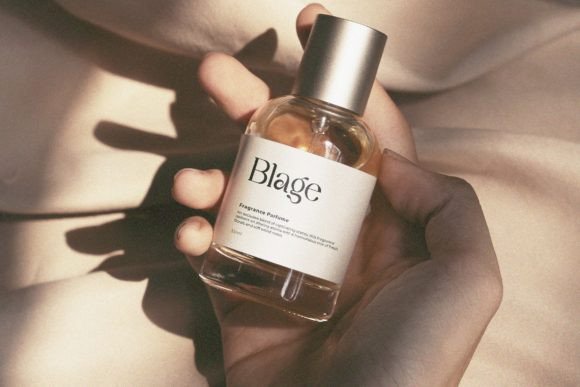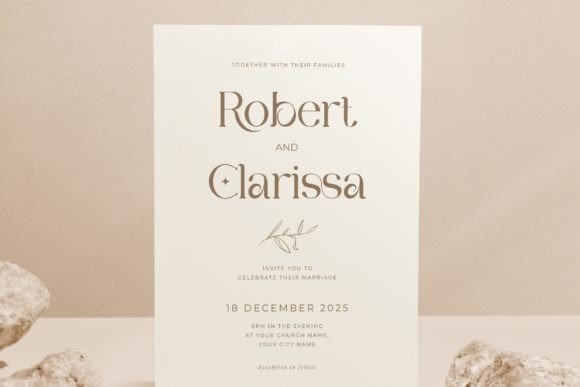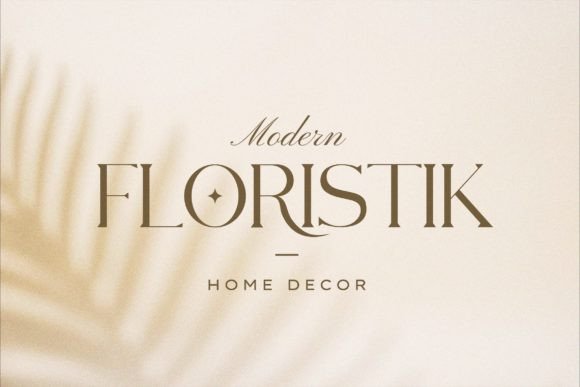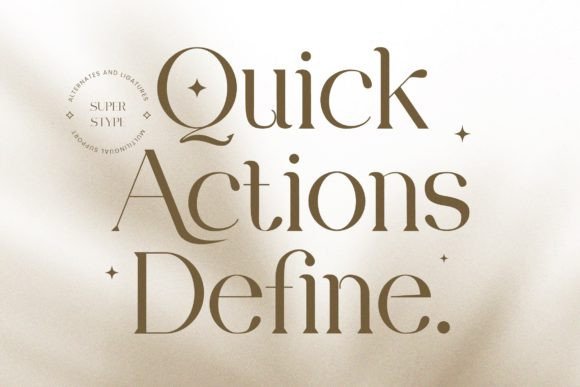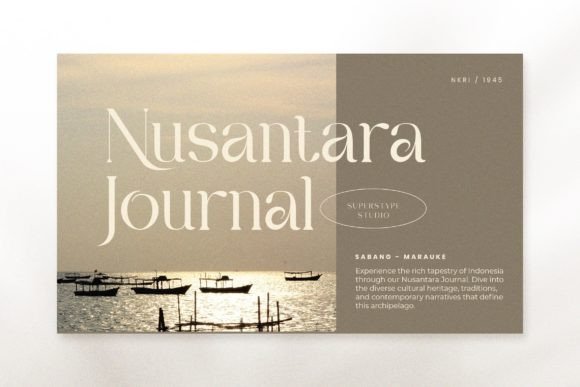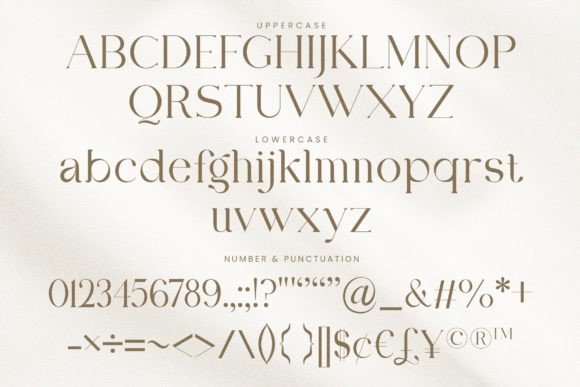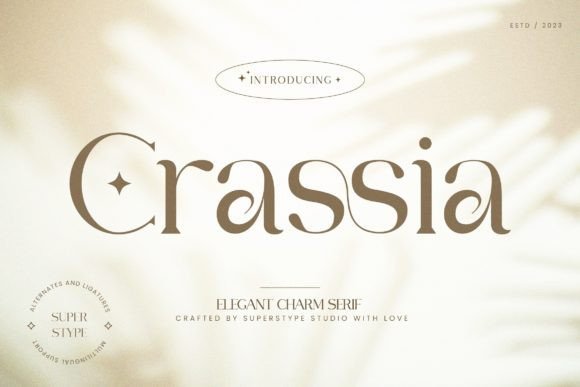
Introducing Crassia Font: Elevate Your Designs with Sophistication
We’re thrilled to announce the release of our newest font, Crassia! This stunning serif typeface is specifically designed for the fashion industry, bringing a touch of luxury and sophistication to your designs. With its refined contours and timeless charm, Crassia is the perfect choice for designers and crafters looking to elevate their visual creations.
The Essence of Crassia Font
Crassia font embodies the essence of high-end fashion, making it an ideal choice for editorial layouts, branding materials, website headers, and high-fashion magazines. Its polished and elegant design exudes a sense of opulence, adding an irresistible touch to your designs. Whether you’re working on a fashion magazine, a luxury brand’s website, or a high-end product catalog, Crassia font is sure to make a statement.
Key Features of Crassia Font
• PUA Encoded: Crassia font is PUA (Private Use Area) encoded, which means you can easily access all the amazing glyphs and ligatures. This feature allows you to unlock the full potential of the font and take your designs to the next level.
• Serif Typeface: Crassia’s serif typeface is designed to bring a sense of sophistication and elegance to your designs. The subtle serifs add a touch of refinement, making it perfect for high-end fashion brands and publications.
• Timeless Charm: Crassia font has a timeless quality that ensures your designs will remain stylish and relevant for years to come. Its classic design makes it an excellent choice for brands and designers looking to create a lasting impression.
• Versatile Implementation: Crassia font can be used across various media, including editorial layouts, branding materials, website headers, and high-fashion magazines. Its versatility makes it an excellent addition to any designer’s toolkit.
Why Choose Crassia Font?
With so many fonts available, why choose Crassia? Here are just a few reasons why Crassia font stands out from the crowd:
• Unique and Exclusive: Crassia font is a unique and exclusive addition to your design arsenal. Its distinctive design ensures that your creations will stand out from the competition.
• Elegant and Sophisticated: Crassia font exudes elegance and sophistication, making it perfect for high-end fashion brands and publications.
How to Use Crassia Font
Using Crassia font is easy! Here are a few tips to get you started:
• Pair it with Other Fonts: Crassia font pairs well with other fonts, making it easy to create stunning combinations. Experiment with different font pairings to find the perfect match for your design.
• Experiment with Ligatures: Crassia font comes with a range of ligatures and glyphs. Experiment with these to add a touch of elegance and sophistication to your designs.
• Use it for Headings and Titles: Crassia font is perfect for headings and titles. Use it to create stunning headlines that grab attention and elevate your designs.